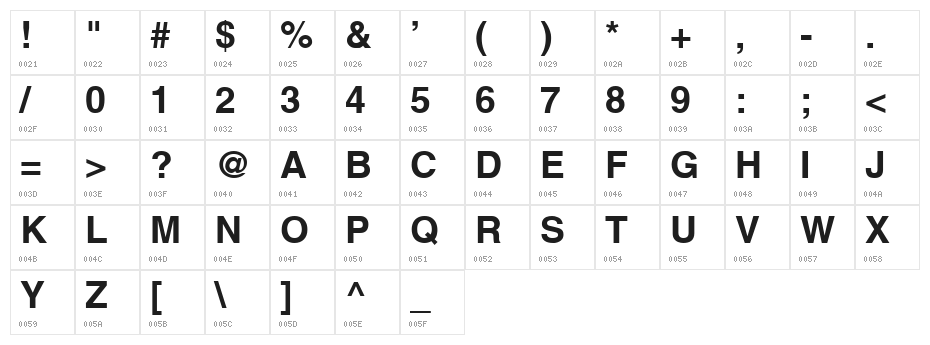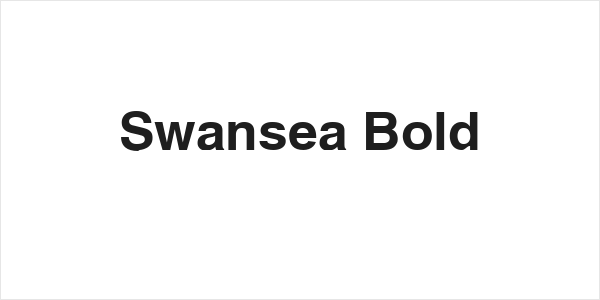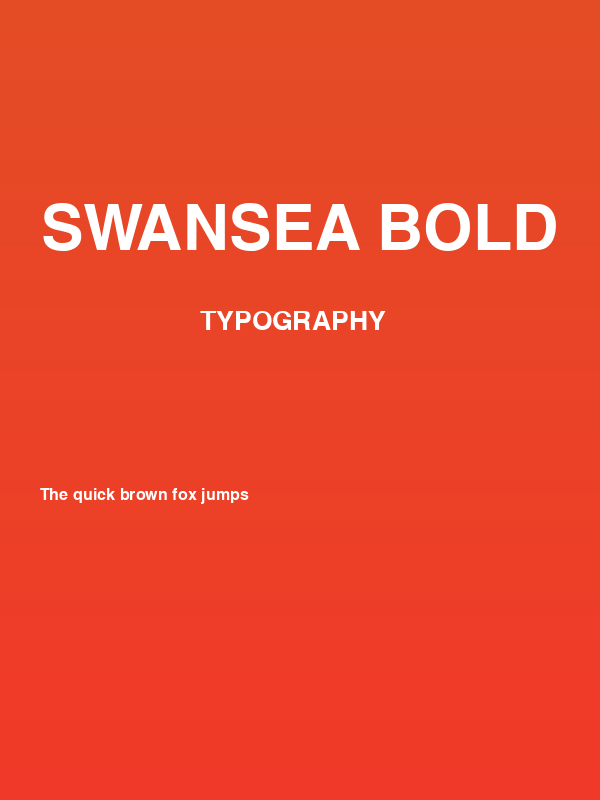
Swansea Bold Font
Swansea Bold Description
This font exhibits a bold and robust appearance, characterized by its thick strokes and clean lines. The uppercase and lowercase letters are well-proportioned, offering a sense of balance and readability. The numerals are clear and distinct, making them easily distinguishable. Special characters are designed with precision, maintaining the overall bold aesthetic. The font's design is straightforward, with a modern touch that makes it suitable for a variety of applications. Its boldness ensures that it stands out, making it ideal for headlines and attention-grabbing text.